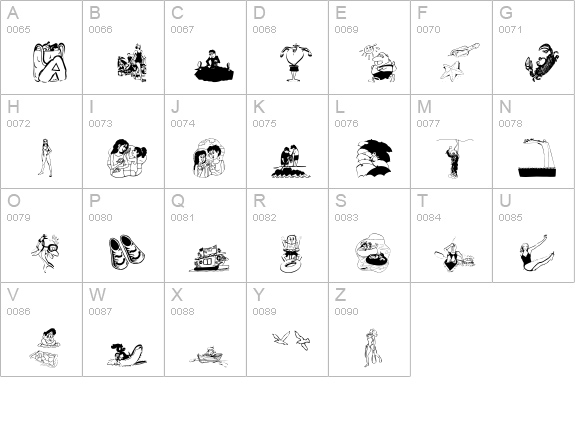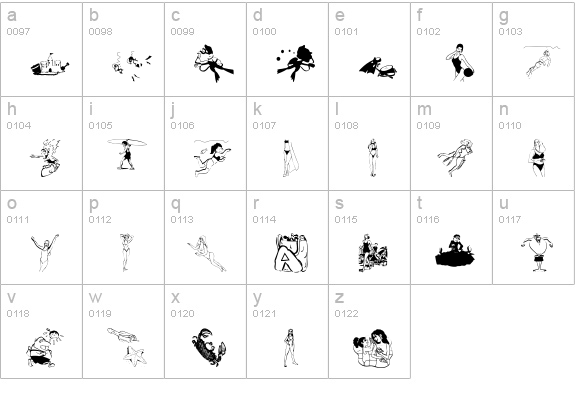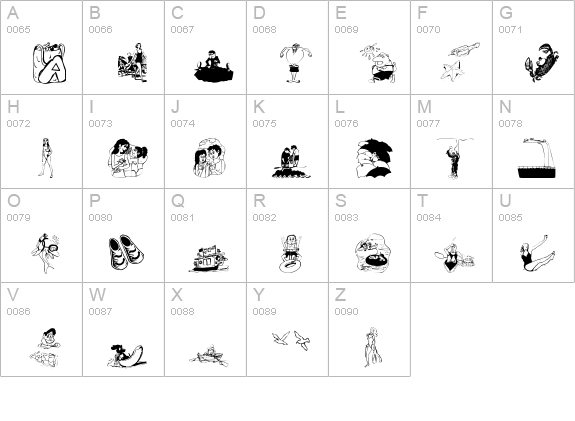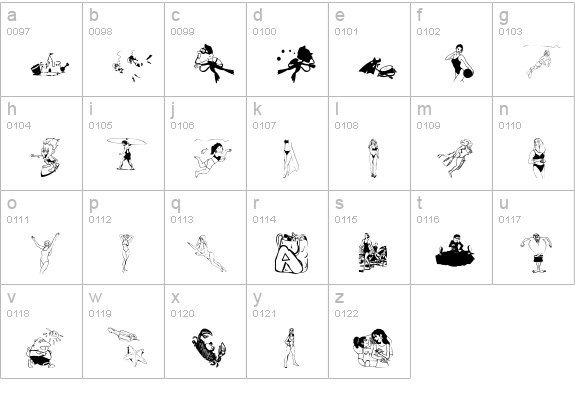
BeachBats Font Details
BeachBats font is a whimsical and playful typeface inspired by the carefree spirit of a day at the beach. With its hand-drawn style and unique characters, this font captures the essence of fun in the sun. Each letter is shaped like a beach ball, surfboard, or other beach-related item, making it perfect for adding a touch of summer to your designs. Best of all, BeachBats font is completely free to use! You can download it at FontsMarket.com and start creating beach-themed projects right away. Whether you're designing a summer party invitation, beach vacation brochure, or simply want to add a touch of sunshine to your work, BeachBats font is the perfect choice. Bring the beach to your designs with this charming and cheerful typeface today!